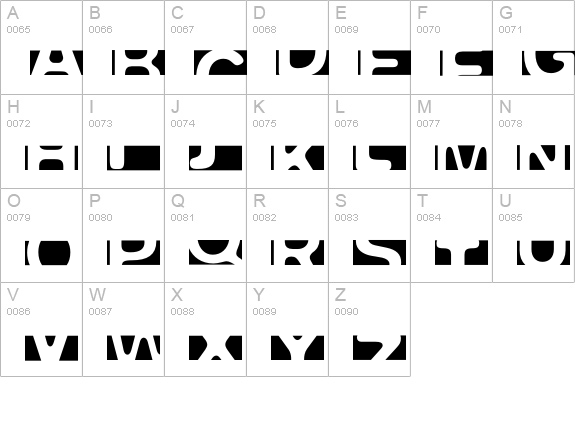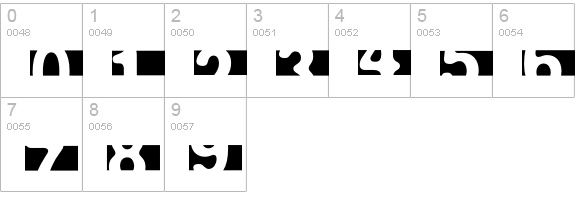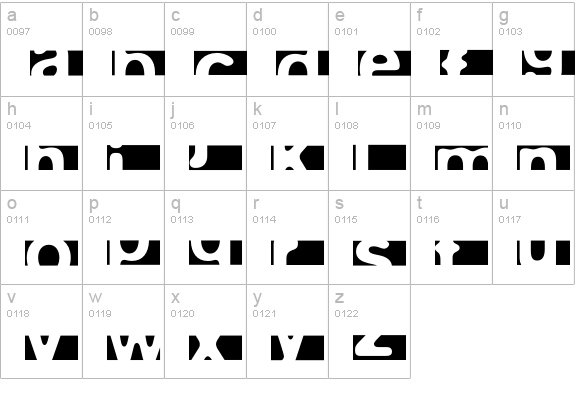
FPeep-NegativeBig Font Details
Introducing FPeep-NegativeBig font, a bold and eye-catching typeface designed to make a statement in your projects. This unique font features sharp lines and negative space that adds a touch of modernity and sophistication to any design. The FPeep-NegativeBig font is perfect for headlines, posters, branding, and any project that requires a strong visual impact. The best part? FPeep-NegativeBig font is available for free download at FontsMarket.com. Simply visit the website and start using this striking typeface in your designs today. Don't miss out on the opportunity to add this impressive font to your collection. Download FPeep-NegativeBig now and elevate your design projects to the next level!